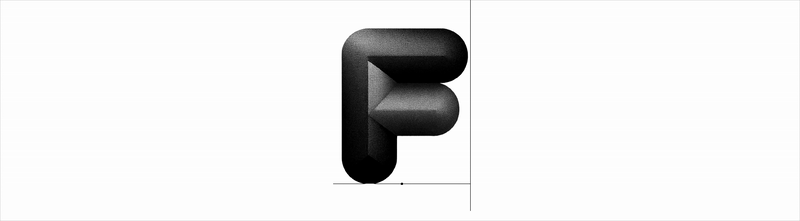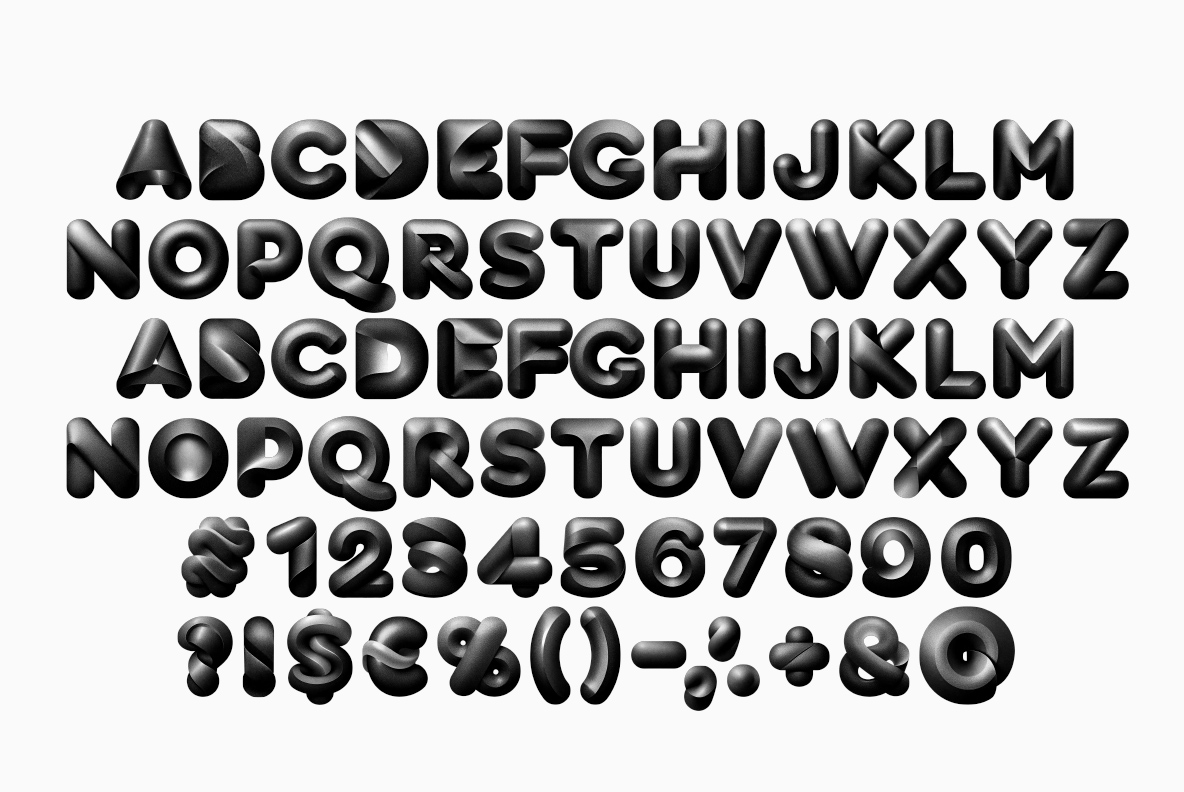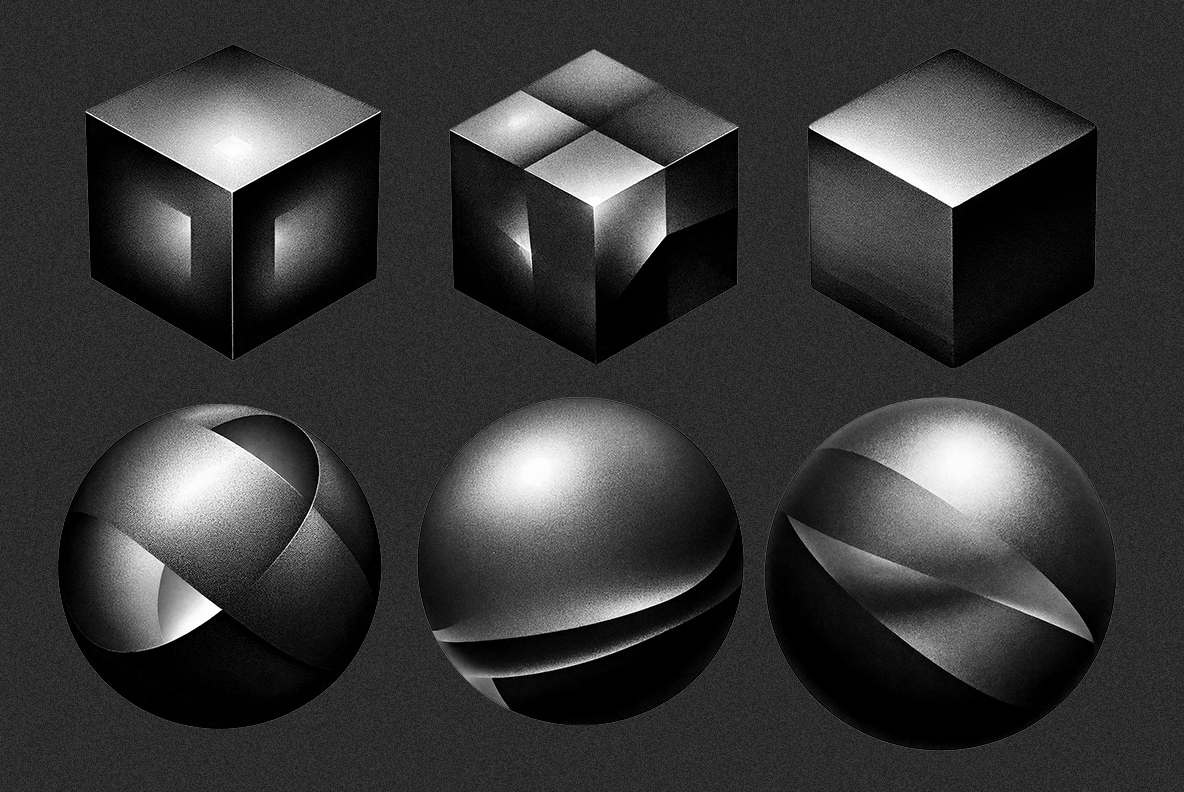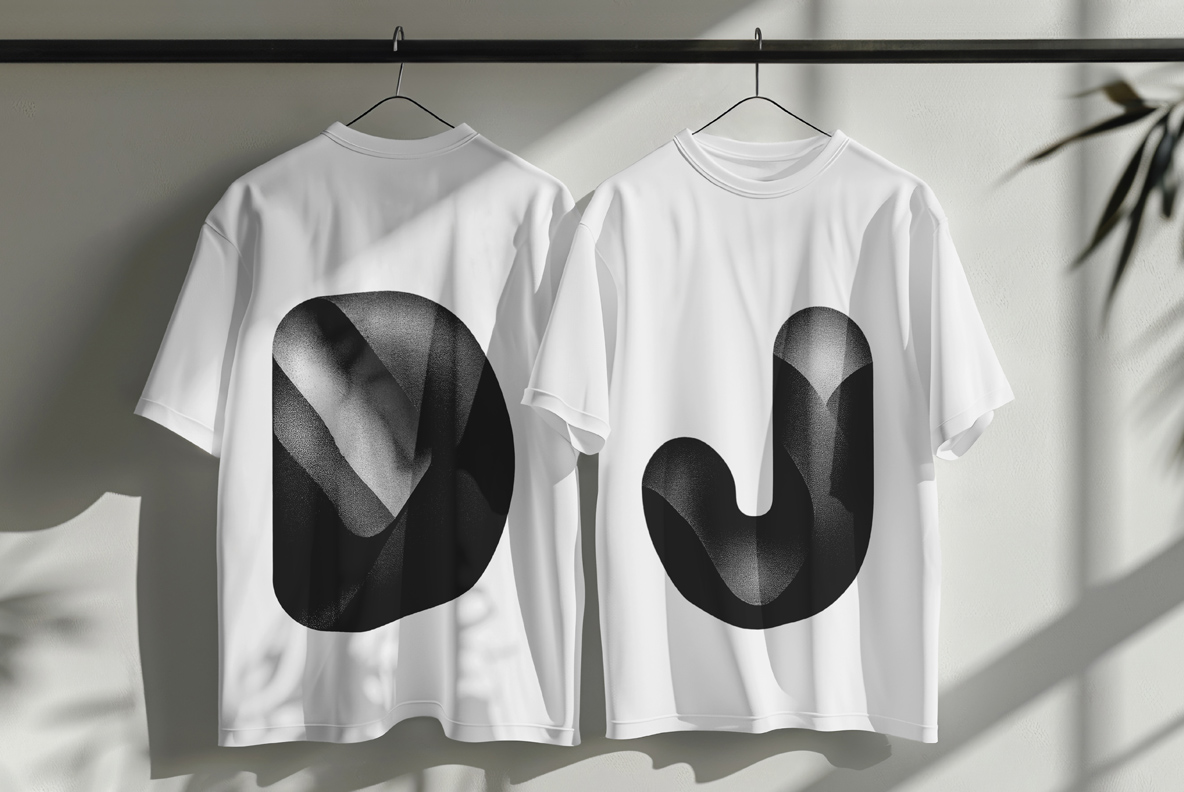
Letters that look pumped full of air and dipped in matte black rubber, with one dull highlight sliding across each swollen stroke. The Darkside Font spaces tightly because the terminals are round, so a short line becomes one solid black mass. Caps, numerals, currency and punctuation are all inflated the same way. Spheres, cubes and twisted knots come with it.
Darkside Font Is Inflated, Not Extruded
First off, the letters look pumped full of air and then dipped in matte black rubber. Edges stay soft, corners round themselves off, and every stroke swells at the middle. A dull sheen slides across the surface, so the shapes read as solid objects rather than flat fills. Because the finish absorbs most of the light, one bright edge does all the describing. And that single highlight is what keeps the Darkside Font legible on black.
Fat Shapes, Tight Spacing
Rounded terminals also let the letters sit unusually close together. So words end up compact, which suits club posters and covers better than long paragraphs. Caps run A to Z, while numerals, currency and punctuation get the same inflated treatment. Even the ampersand puffs up properly. In practice a short line reads as one solid black mass, which is exactly the effect people buy it for.
The Set Includes More Than Letters
Spheres, cubes, knots and twisted rings also ship alongside the alphabet. Because they share the same finish, a poster can mix type and objects without anything looking borrowed. That matters for music and fashion work, since a logo there often needs a shape rather than a word. Still, keep the palette tight, since this finish fights busy colour.
Where the Darkside Font Belongs